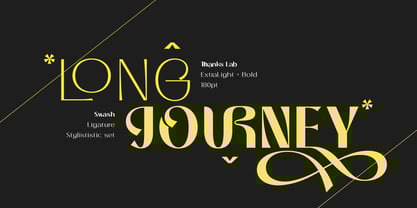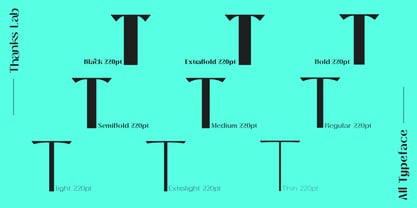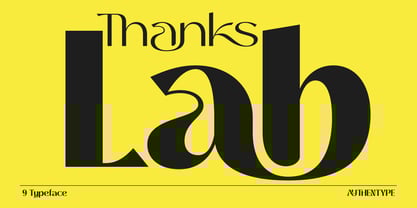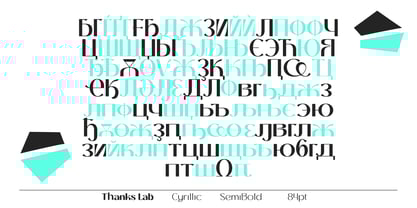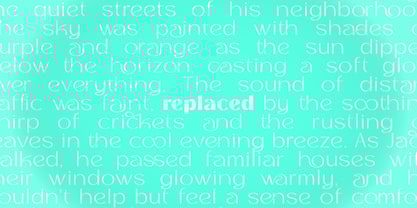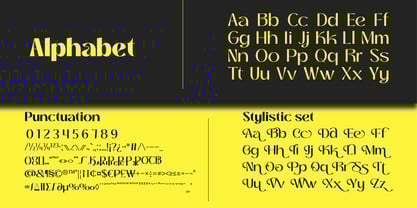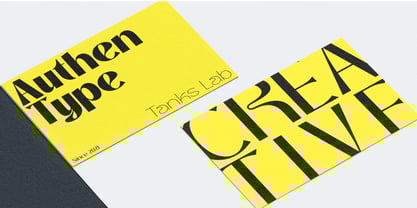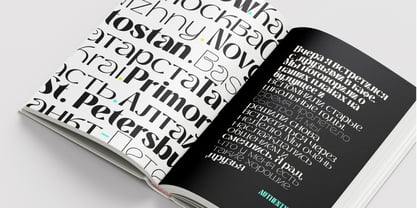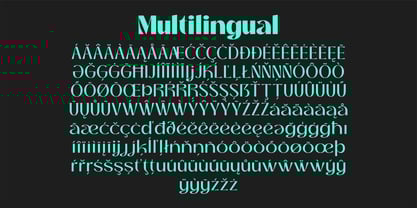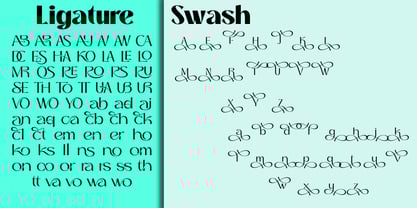
Thanks Lab
by Authentype
The Thanks Lab Font Family was designed by Ekayasa and published by Authentype. Thanks Lab contains 9 styles and family package options. More about this family
THANKS LAB is a premium futuristic soft font that combines sleek modern design with smooth, rounded edges for a bold yet approachable aesthetic. Perfect for branding, posters, headlines, UI/UX, and sci-fi-themed projects, this font is crafted to inspire creativity. With full support for Latin, Cyrillic, and Greek alphabets, THANKS LAB Futuristic Soft Font ensures global versatility for all your design needs.